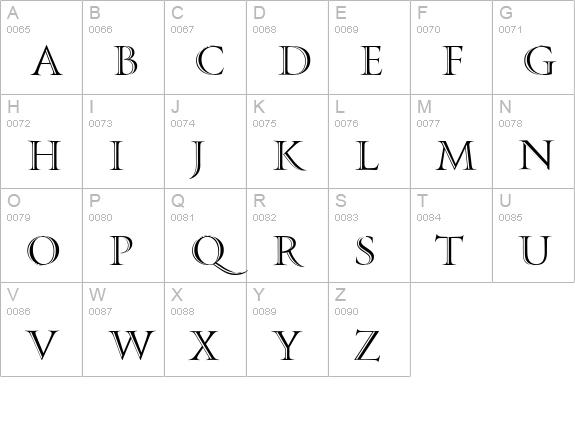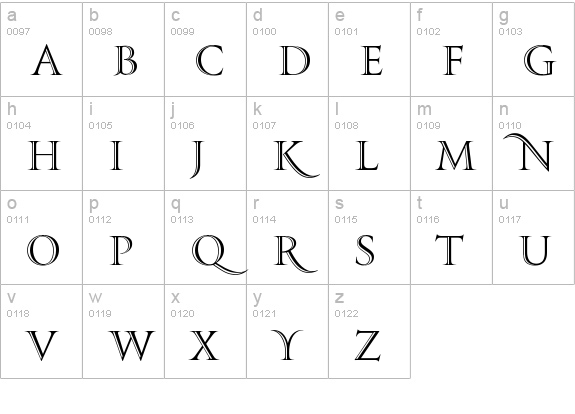
PFMonumentaPro-Shaded Font Details
PFMonumentaPro-Shaded is a stunning display font that exudes elegance and sophistication. With its unique shading effects, this font is perfect for creating eye-catching headlines, titles, and logos that demand attention. The intricate details and fine lines of PFMonumentaPro-Shaded give it a timeless and classic appeal, making it a versatile choice for a wide range of design projects. What sets PFMonumentaPro-Shaded apart is not only its exquisite design but also the fact that it is available for free download at FontsMarket.com. This means you can easily add this high-quality font to your collection without any cost, making it a valuable resource for designers, creatives, and enthusiasts alike. Whether you're working on a branding project, a poster design, or any other creative endeavor, PFMonumentaPro-Shaded will elevate your work with its sophisticated charm and artistic flair. Download this font today and unleash your creativity with this exceptional typeface.